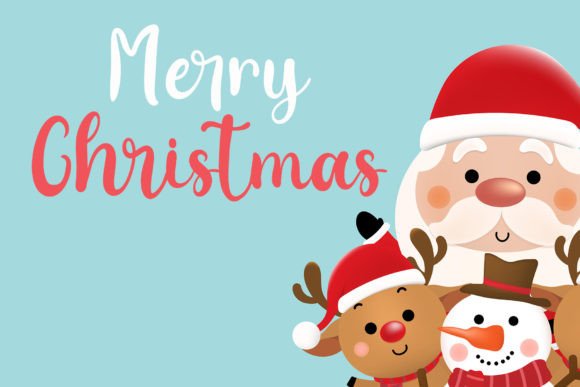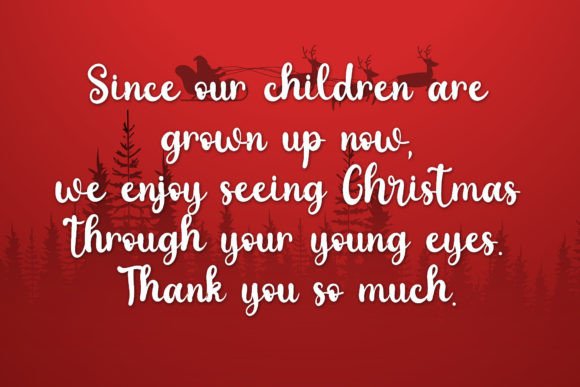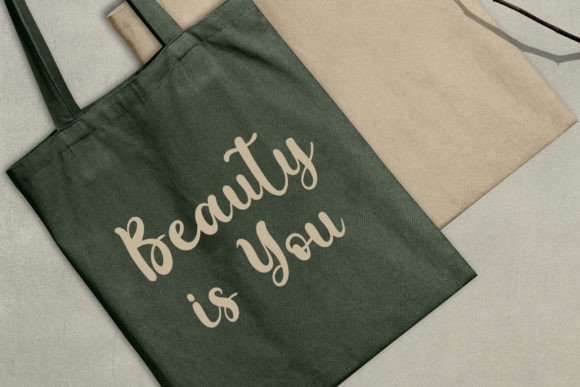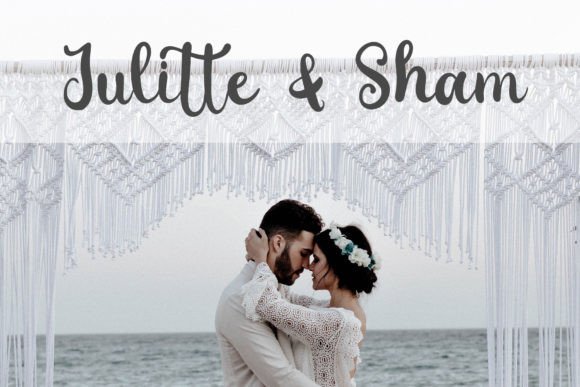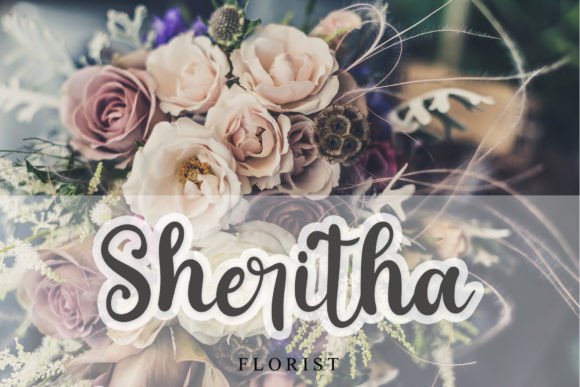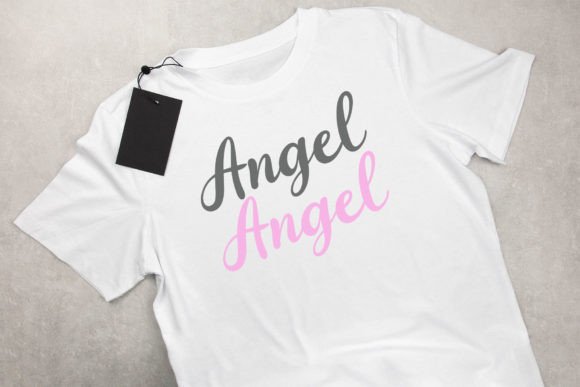
Introducing Alitha Christmas Font: Elevate Your Designs with Elegance
Are you on the hunt for a font that adds a touch of elegance and sophistication to your designs? Look no further than the Alitha Christmas Font. This stunning, flowing handwritten font is perfect for crafters, designers, and anyone looking to create spectacular designs that stand out from the crowd.
The Charm of Alitha Christmas Font
Alitha Christmas Font is described by its elegant touch, making it an ideal choice for a variety of projects. From holiday cards and invitations to branding and packaging, this font is sure to impress. Its incredibly distinct and timeless style will make your designs fall in love with its charm. Whether you’re a seasoned designer or a crafting enthusiast, Alitha Christmas Font is a must-have in your font collection.
Key Features of Alitha Christmas Font
• Flowing Handwritten Style: Alitha Christmas Font boasts a beautiful, flowing handwritten style that exudes elegance and sophistication.
• Elegant Touch: The font’s elegant touch makes it perfect for designs that require a touch of refinement and luxury.
• Distinct and Timeless Style: Alitha Christmas Font’s incredibly distinct and timeless style ensures that your designs will stand out from the crowd and remain relevant for years to come.
• Versatile: This font is perfect for a variety of projects, including holiday cards, invitations, branding, packaging, and more.
Use Alitha Christmas Font for Your Favorite Projects
So, what can you create with Alitha Christmas Font? The possibilities are endless! Here are a few ideas to get you started:
• Holiday Cards and Invitations: Create stunning holiday cards and invitations that will impress your friends and family.
• Branding and Packaging: Elevate your brand with Alitha Christmas Font’s elegant touch, perfect for luxury brands, packaging, and labeling.
• Crafting Projects: Add a touch of elegance to your crafting projects, such as scrapbooking, journaling, and paper crafting.
• Digital Designs: Use Alitha Christmas Font to create beautiful digital designs, including social media graphics, blog posts, and website headers.
Why Choose Alitha Christmas Font?
With so many fonts available, why choose Alitha Christmas Font? Here are just a few reasons:
• Unique and Distinctive: Alitha Christmas Font’s unique and distinctive style ensures that your designs will stand out from the crowd.
• Elegant and Sophisticated: The font’s elegant and sophisticated style makes it perfect for designs that require refinement and luxury.
• Easy to Read: Despite its elegant style, Alitha Christmas Font is easy to read, making it perfect for body text and headlines.
• High-Quality: Alitha Christmas Font is a high-quality font, carefully crafted to ensure that it looks great in any design.
In conclusion, Alitha Christmas Font is a stunning, flowing handwritten font that adds a touch of elegance and sophistication to any design. With its incredibly distinct and timeless style, this font is perfect for crafters, designers, and anyone looking to create spectacular designs. Whether you’re looking to create holiday cards, branding, packaging, or digital designs, Alitha Christmas Font is a must-have in your font collection.